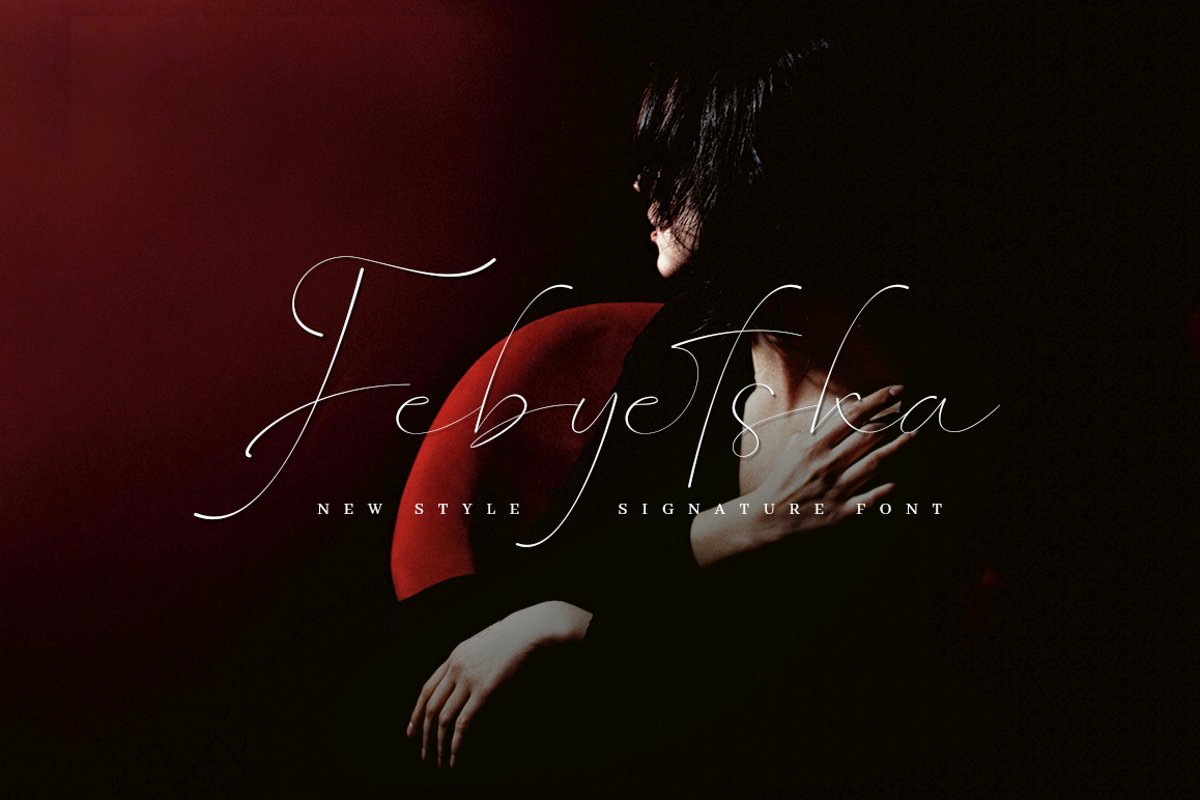
Febyetska
Febyetska is an elegant new signature style font. The thick and thin parts of each glyph give the impression of beauty and make it classy. With a new style, we want to help your project or brand become fresher and make it elegant and pleasant for all who see it.